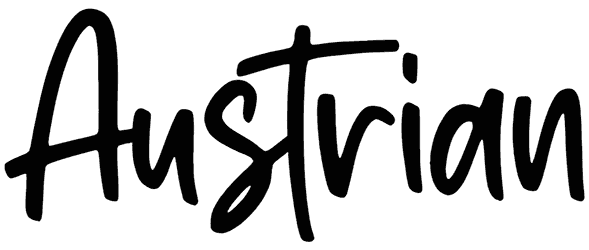
Austrian Font
Bringing together to make the track on the finest course of developing and designing many graphical elements for a friendly and feminine attitude. Austrian font has learned its work in performing well in the appraisals of audiences, so starting with achievement, the breezy process of this script font and counting moments for the effect that connects with friendship and playful touch.